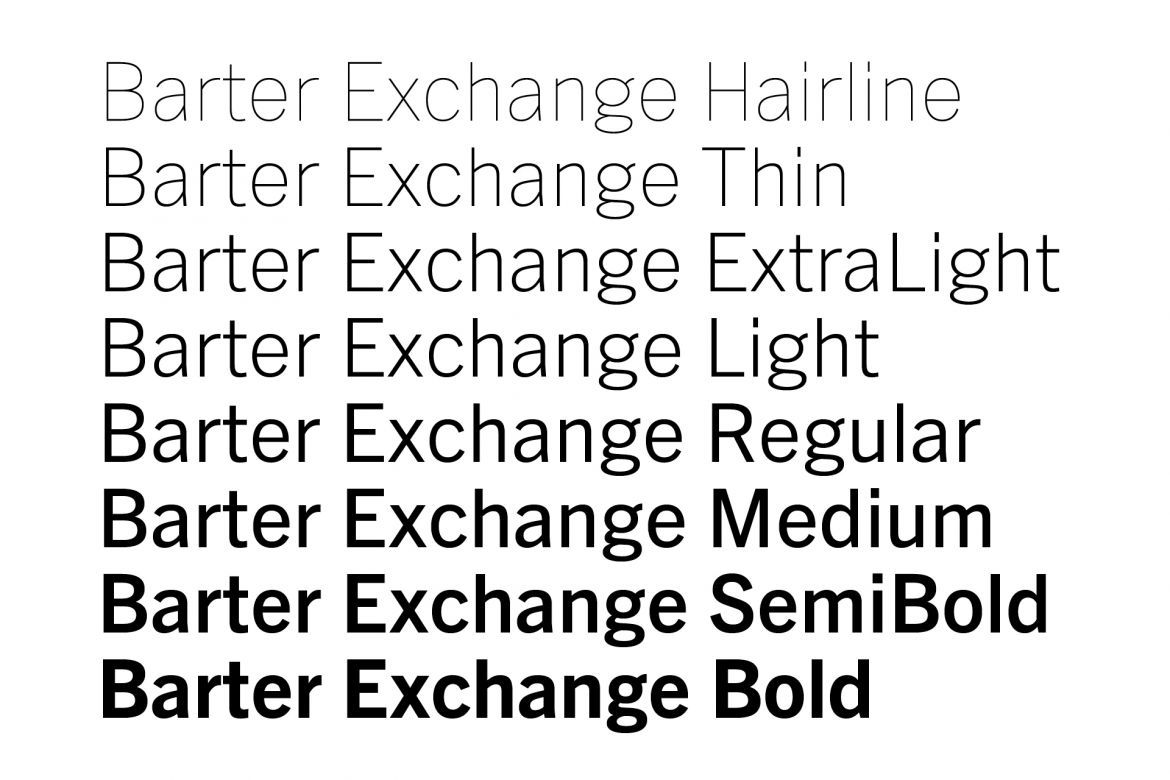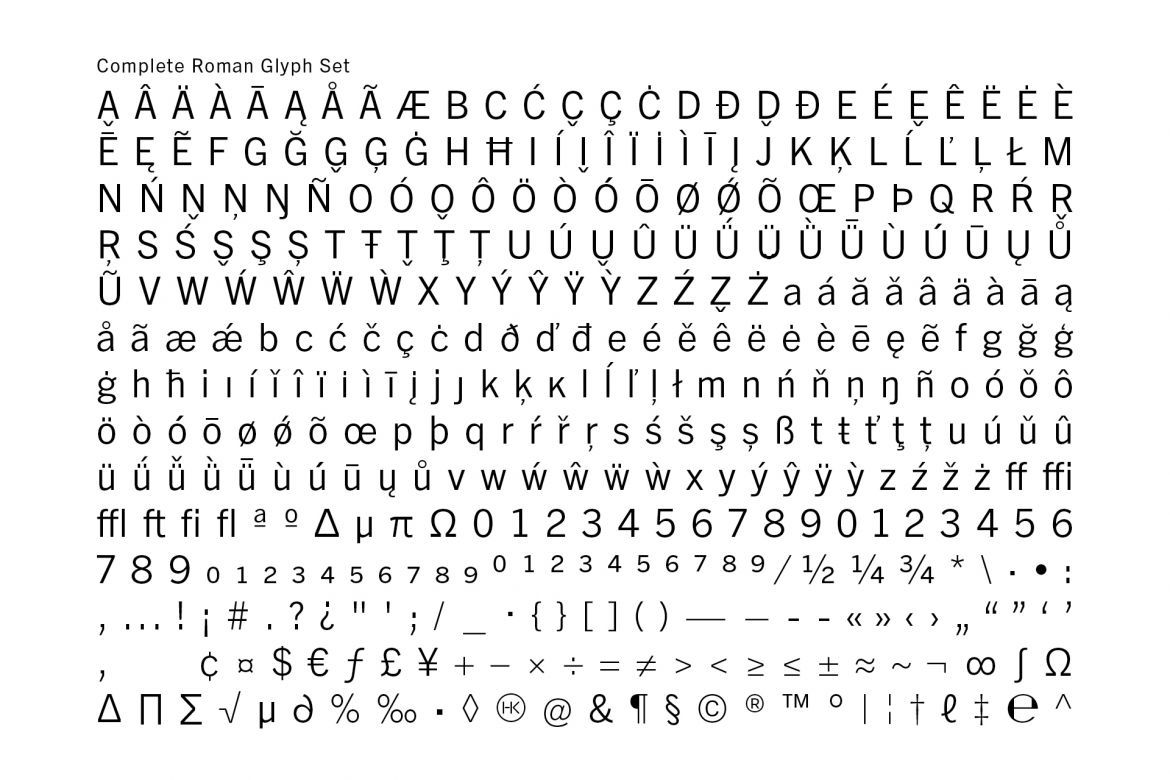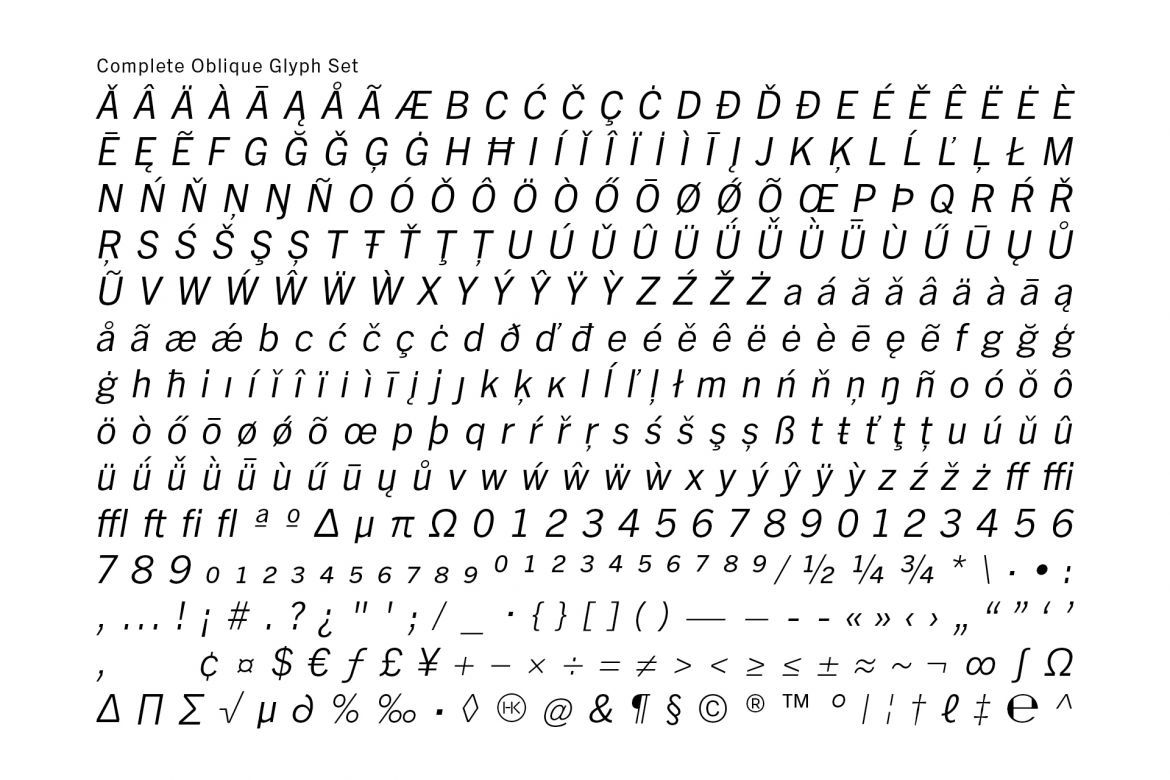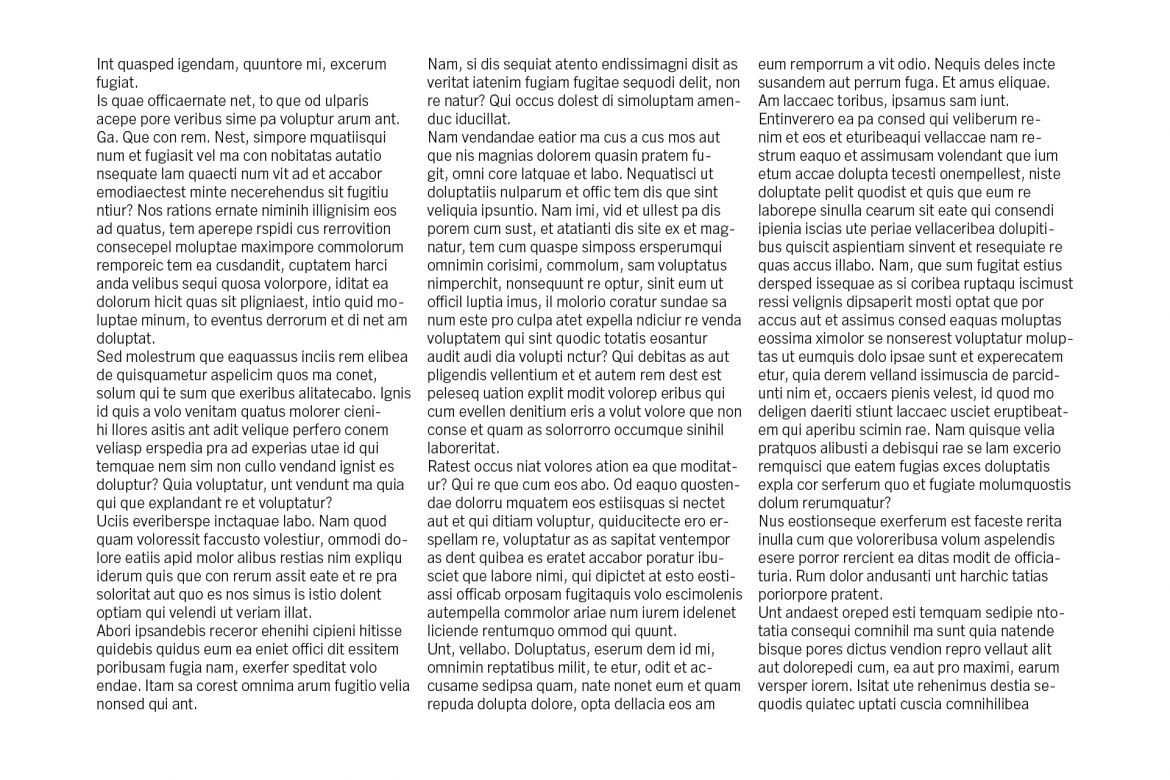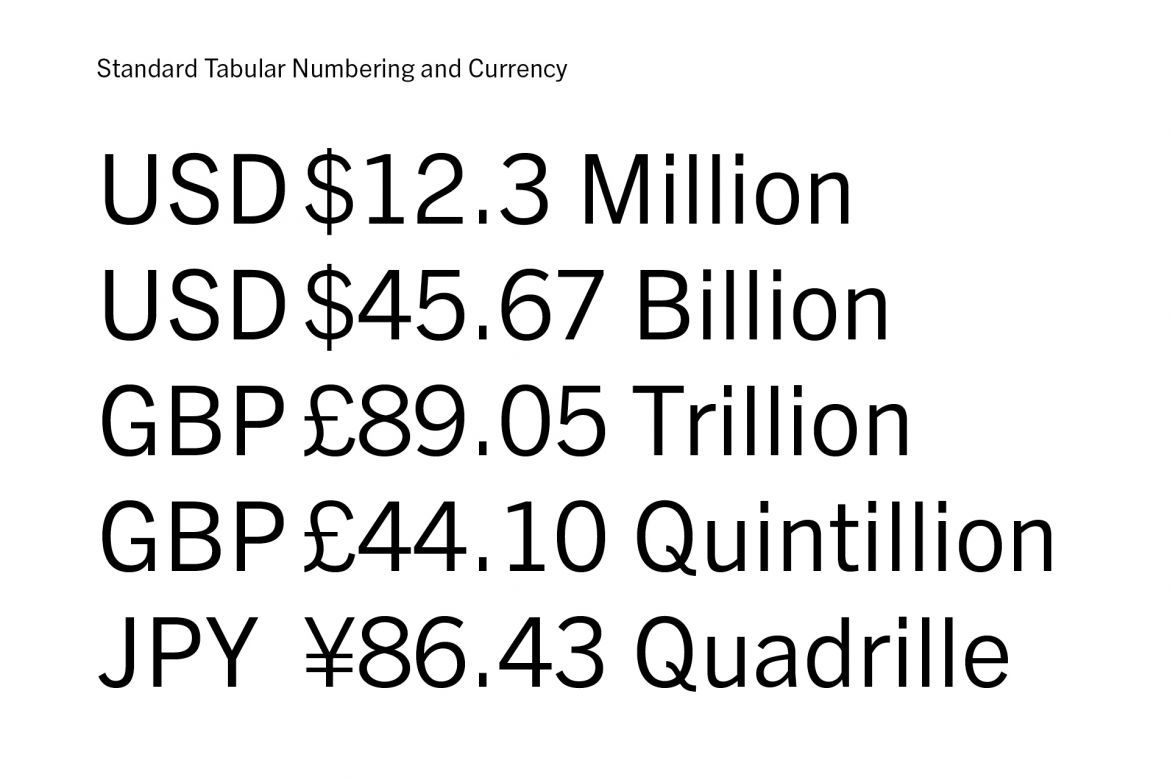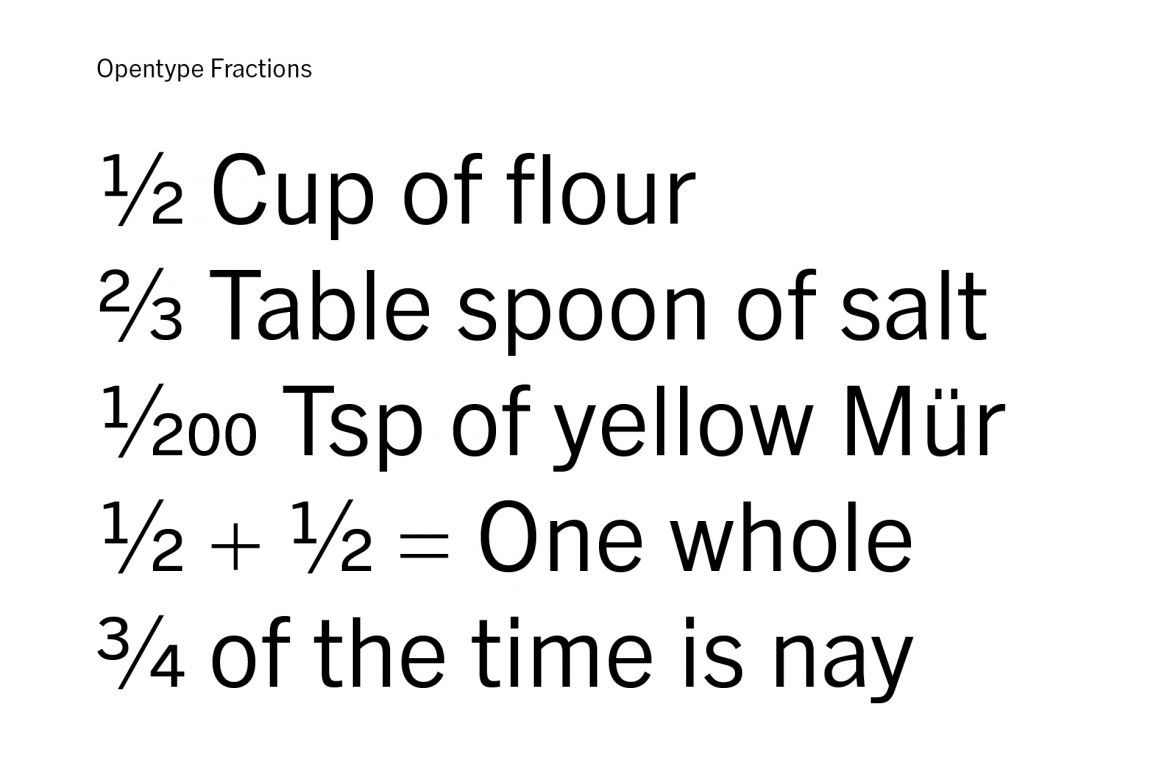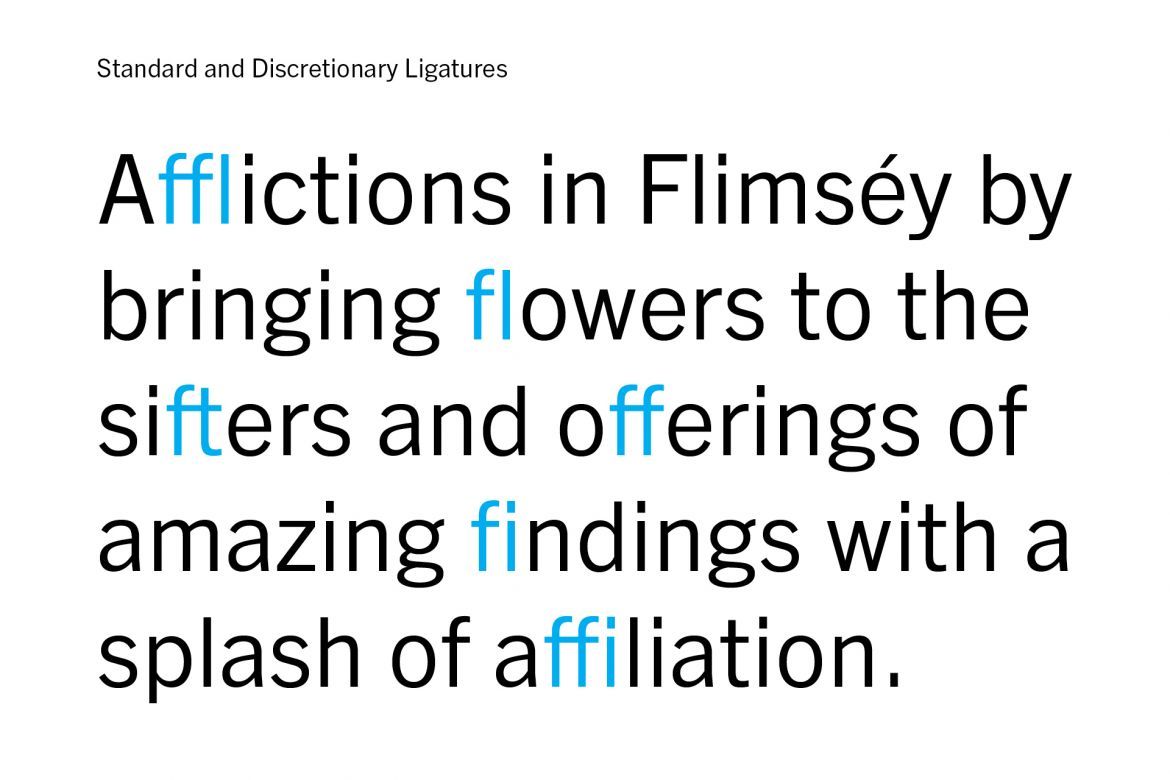
Barter Exchange Typeface
Barter Exchange is a workhorse typeface inspired by the classical American gothic typeface of the 50s.
• workhorse typeface that can be incorporated into text sizes.